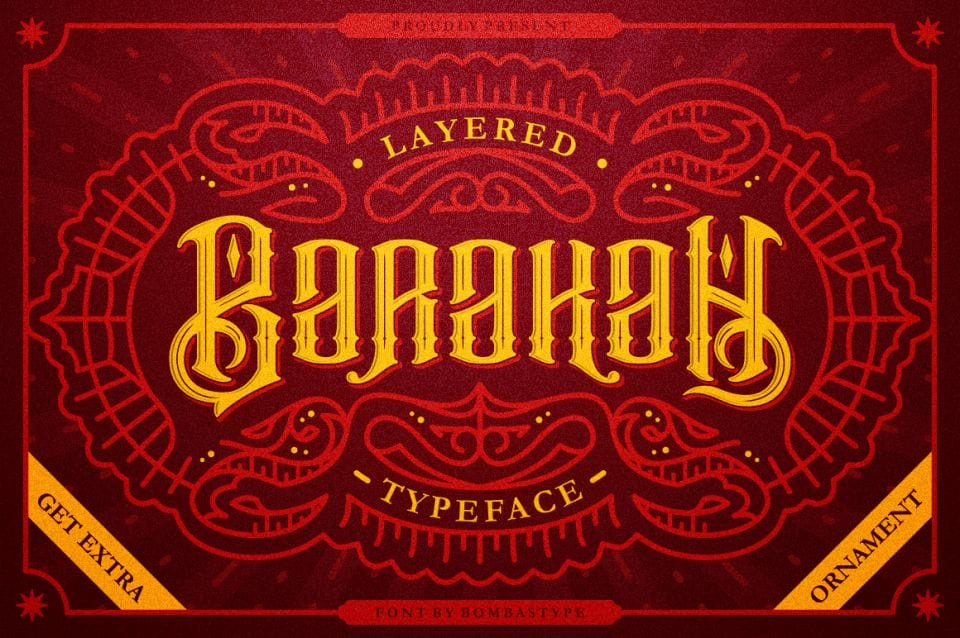
Send your artwork to the Victorian Age with Barakah! This multi-layered display font exudes a Victorian style in multiple layers including inline and
- Multi-layered, professional Victorian font.
- 5 fonts in 1 – multiple layers include Regular, Inline, Inner, Shadow, Drop Shadow.
- 320+ glyphs per font.
- Multilingual support.
- Extra features include alternate characters, extra ornaments, Uppercase, Uppercase Mirror, Lowercase, Numerals, Currency and Punctuation.